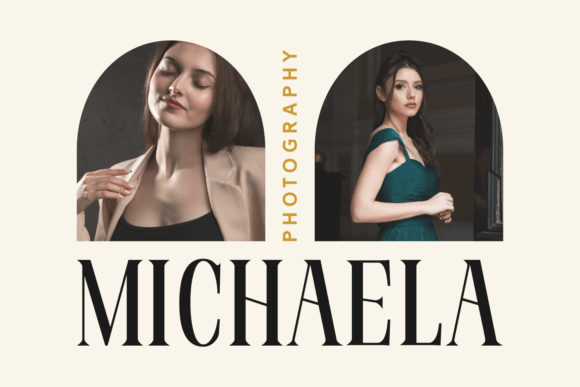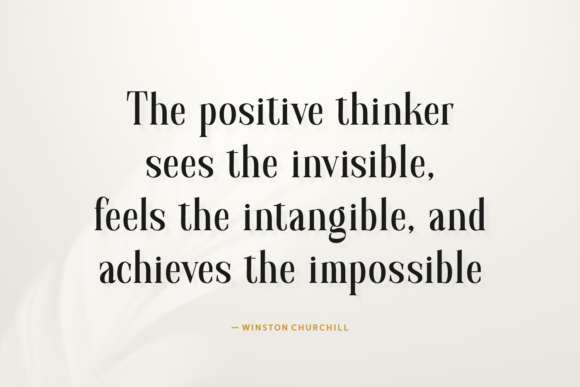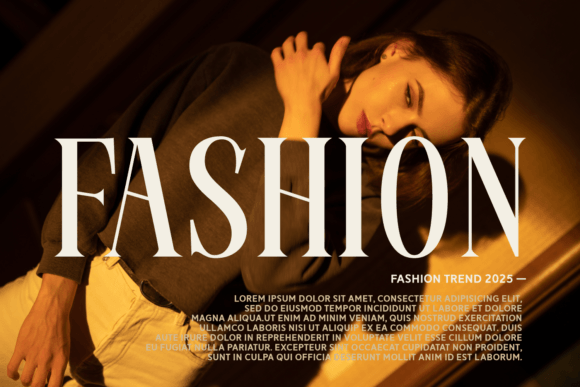
Introduction to Marase Font Font
Fonts play a crucial role in design, and the Marase Font font is a typeface that brings both character and versatility to any project. Whether you’re working on a branding project, a website, or a print design, the Marase Font font offers a unique style that can elevate your work.
Marase is a modern serif font that blends elegance and readability.
It features clean lines and stylish serifs, making it perfect for both print and digital designs Marase is great for headings, invitations, and any project where you want a touch of sophistication.
Key Features of Marase Font Font
Why Choose Marase Font Font?
The Marase Font font is more than just a typeface – it’s a design tool that helps you communicate your message with style and clarity. Its unique character set and versatile design make it suitable for a wide range of applications, from elegant invitations to bold headlines.
With its carefully crafted letterforms and balanced proportions, the Marase Font font ensures readability and visual appeal across all mediums.
What makes Marase Font font special?
The Marase Font font stands out with its unique design, exceptional readability, and versatility across various design applications.